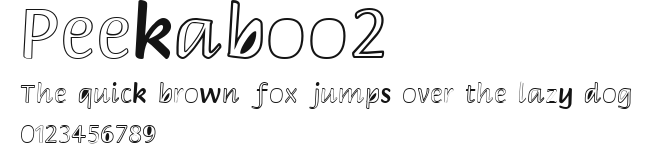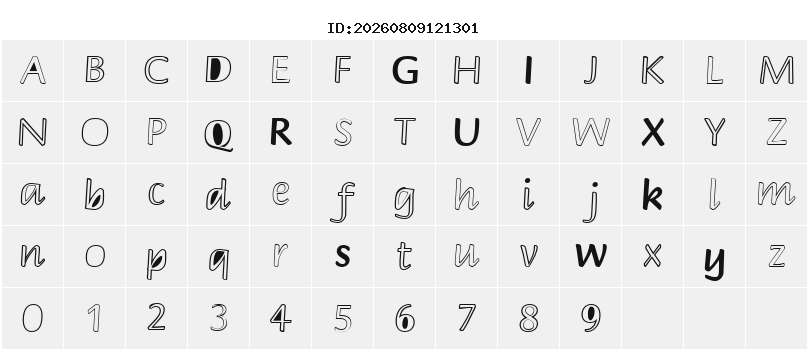
• Font Name: Peekaboo2
• Font Style: Peekaboo2
• Full Font Name: Peekaboo2
• PostScript Name: Peekaboo2
About Peekaboo2.ttf
Peekaboo2.ttf is a modern, elegant sans-serif font designed for ultimate readability and visual harmony. Perfect for branding, headlines, web design, and print materials.